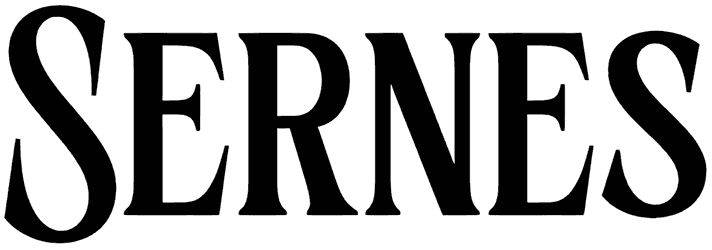
Sernes Font
Sernes is a majestic serif font that is masterfully designed with a considerable amount of precision and elegance to be your practical assistant in bringing any kind of creative ideas, such as stationery, business cards, branding projects, and social media posts to real life. While this classic typeface offers you two distinctive styles, the lack of lowercase letters is negligible.